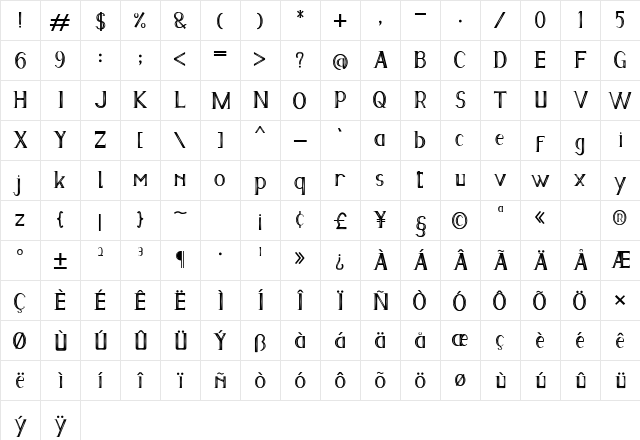
Psychopath Regular
| Foundry | DawnCreative.Id |
| Designer | Fajar Rachmadi P |
Design Context for Psychopath Typeface
Psychopath takes a measured approach to typography — its balanced proportions and neutral character make it a reliable workhorse for both digital and print work.